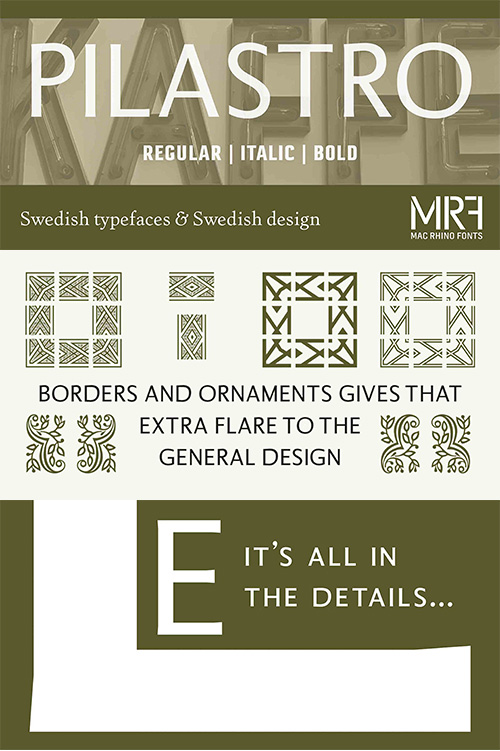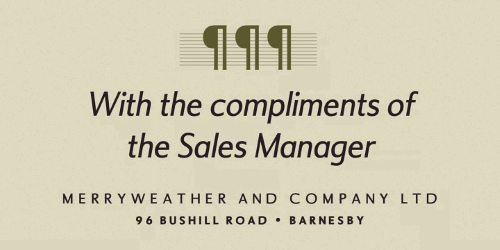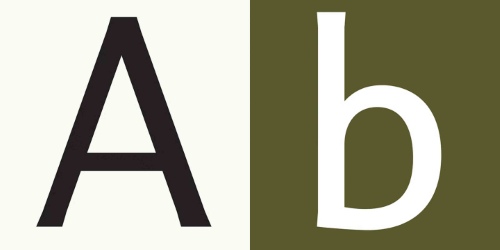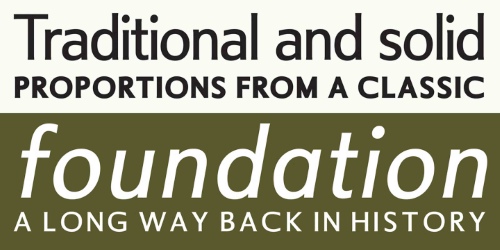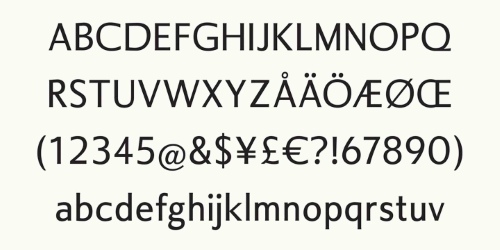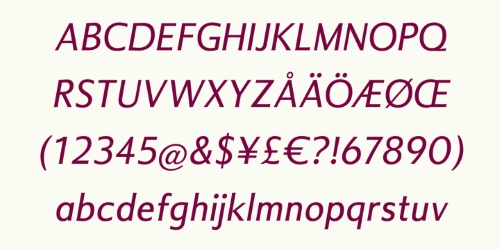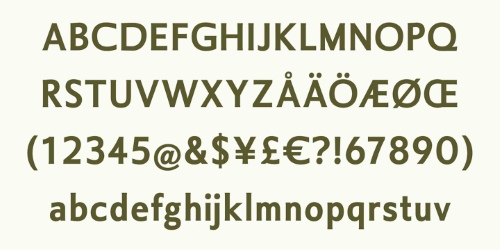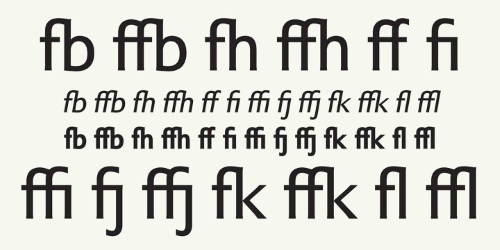
Pilastro - 3 Styles Font Family New!
- Pilastro is a captivating typeface that playfully engages with Roman letters, often known as Trajanus letters. While the proportions of the uppercase characters draw inspiration from classic inscribed letters, this typeface adopts a modern twist. The Regular weight, along with Italic and Bold variations, creates a compact yet versatile family. Each weight includes an extended Latin character set, a robust selection of ligatures, and decorative ornaments and borders, providing designers with a wide range of creative possibilities. Pilastro is designed primarily for display use in larger sizes, yet it is also crafted to perform beautifully in smaller sizes, making it an excellent choice for various design applications.